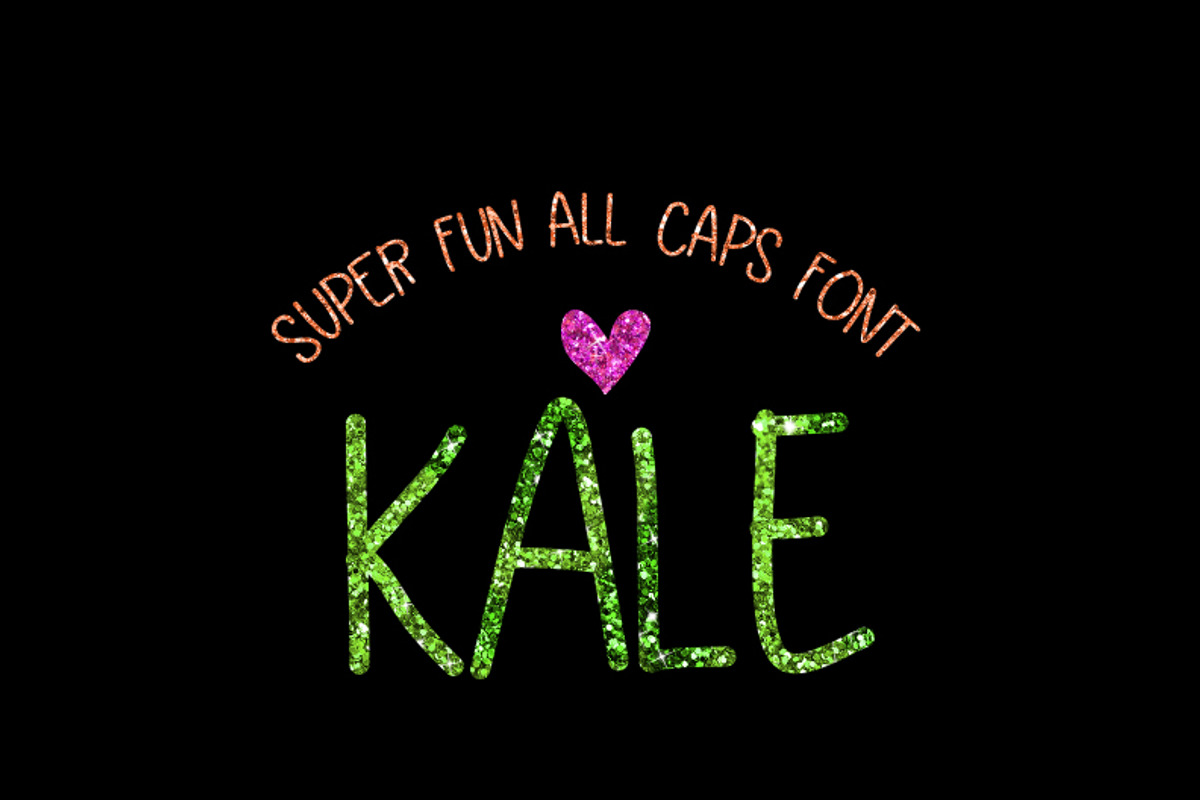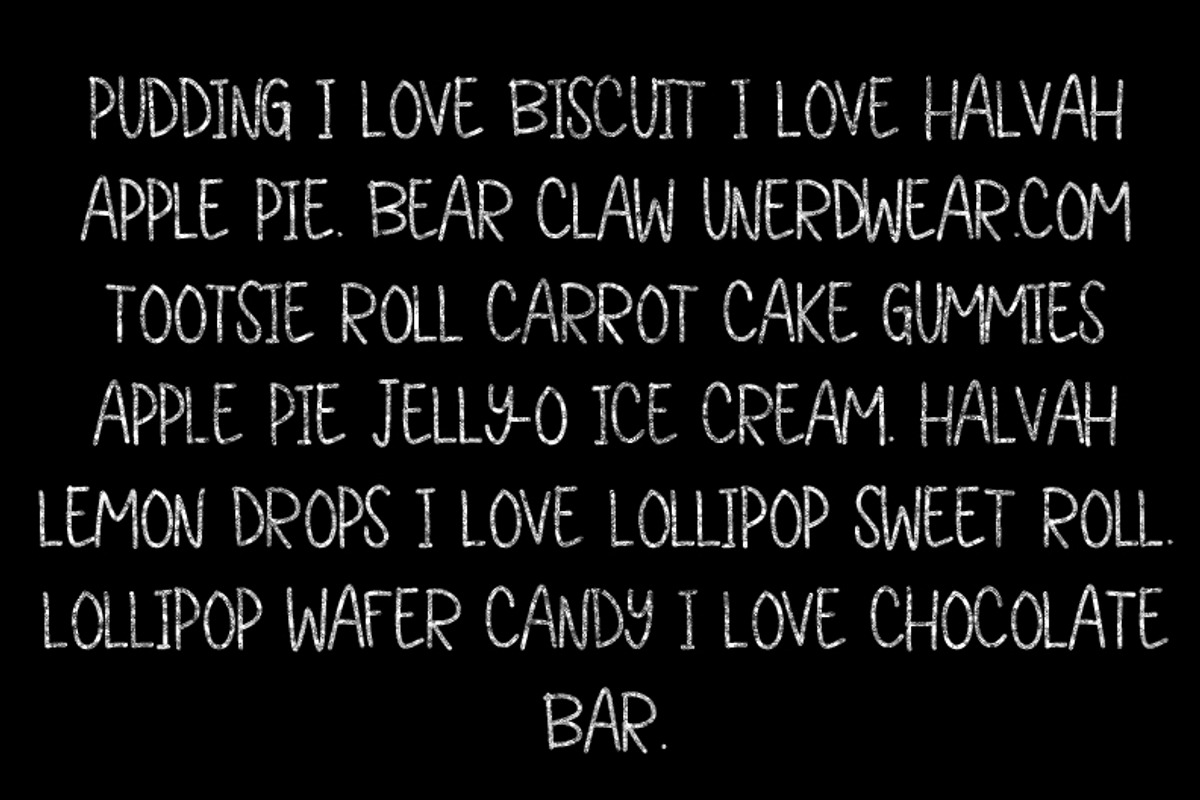
Kale - All Caps Font
Kale - All Caps Font by OnTheSpotStudio is a font selected for branding, posters, packaging, typography.
Why Kale - All Caps Font is worth a look
Kale - All Caps Font by OnTheSpotStudio fits naturally into Branding, posters, packaging, typography.